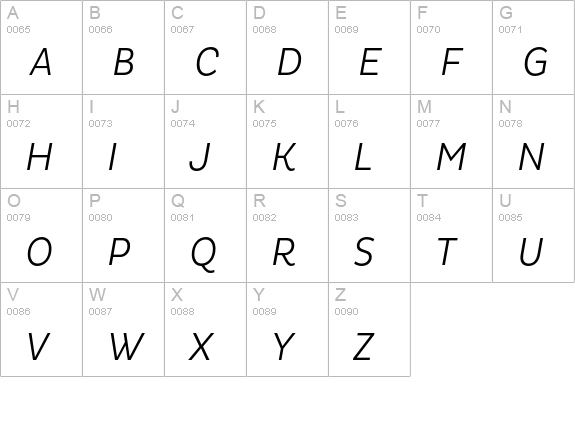
Pluto Cond Light Italic is a refined, elegant, condensed-width, italic variant in the Pluto typeface family \xE2\x80\x94 well suited to elegant body text, refined sub-headings, and luxury branding.
The Pluto Cond Light Italic font is a sleek and modern typeface that exudes elegance and sophistication. Its slender and italicized design adds a touch of flair to any project, making it perfect for use in fashion magazines, luxury branding, or upscale invitations. The soft curves and delicate lines of this font create a sense of refinement and grace. Best of all, the Pluto Cond Light Italic font is available for free download at FontsMarket.com. Whether you are a designer looking to add a touch of sophistication to your work or a business owner seeking a stylish font for your branding materials, this font is the perfect choice. Download it today and elevate your designs with the timeless beauty of Pluto Cond Light Italic.